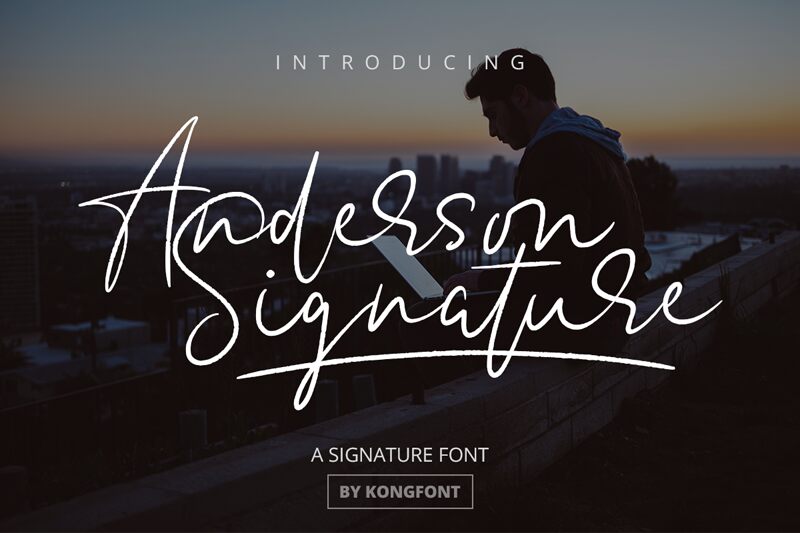
Anderson Signature font family by Kong Font is a free handwritten font family with a flowing elegant appeal that reflects its high modern taste. With 6 font styles, the font presents its users with new possibilities and design options that can improve the quality of their projects and their experience. It features casual yet artistic letterforms that were inspired by the natural authentic style of handwriting, making it perfect for contemporary designs and applications.
Integrate Anderson Signature within personal signatures, invitations, and branding projects. It can also accentuate digital media typography, book titles, magazine covers, wall art, product packaging, creative digital projects, etc.